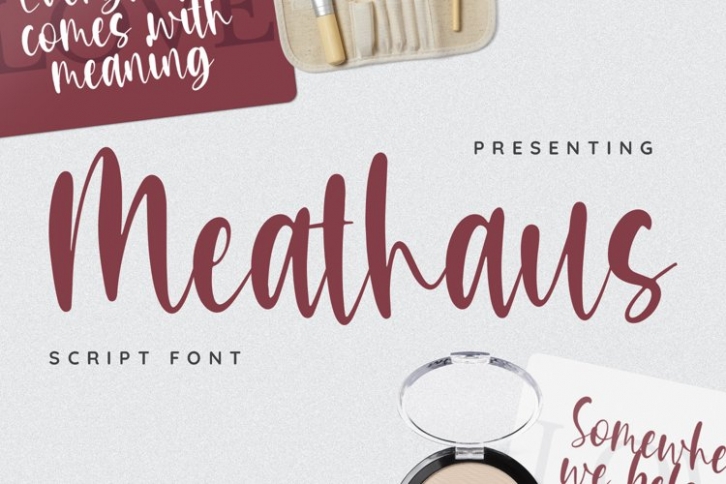
Meathaus is a gorgeous font that was realeased on October 24, 2021. The font can be used in many style contexts and design environments. Perfect for invitations, magazines, websites, logos, and more! It was designed by plusstore and the file size is 12.37 MB. Thanks for checking out this font!